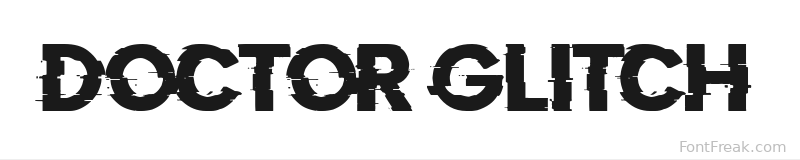
Doctor Glitch
About Doctor Glitch
Introducing the Doctor Glitch font by woodcutter Manero, a striking display typeface that embodies a unique blend of modern aesthetics and digital distortion. This font, released in 2018 under a freeware license, is characterized by its bold stroke weight and intentional irregularities that evoke a sense of glitch art. The visual style features a mix of smooth curves and jagged edges, creating an eye-catching contrast that is both stylish and edgy. The spacing between characters is thoughtfully designed, ensuring legibility while maintaining its artistic flair.
The Doctor Glitch font is ideal for a variety of creative projects. It shines in applications like movie posters, where its distinctive style can capture attention and convey a sense of urgency or drama. Additionally, this typeface is perfect for music album covers, especially in genres that embrace avant-garde aesthetics. Graphic designers will find it useful for branding projects that aim to stand out in a crowded market, such as tech startups or gaming companies. Moreover, Doctor Glitch can add a contemporary twist to event flyers and promotional materials, helping businesses attract a younger audience.
Targeted towards graphic designers, small business owners, and content creators, the Doctor Glitch font offers versatility and a fresh perspective. Its unique characteristics make it a go-to choice for those looking to inject personality into their designs. This font stands out not only for its visual appeal but also for its ability to evoke emotions and create a memorable impact. Whether you're seeking to make a bold statement or simply want to explore the creative possibilities of typography, the Doctor Glitch font free download is a resource worth considering for your next project.